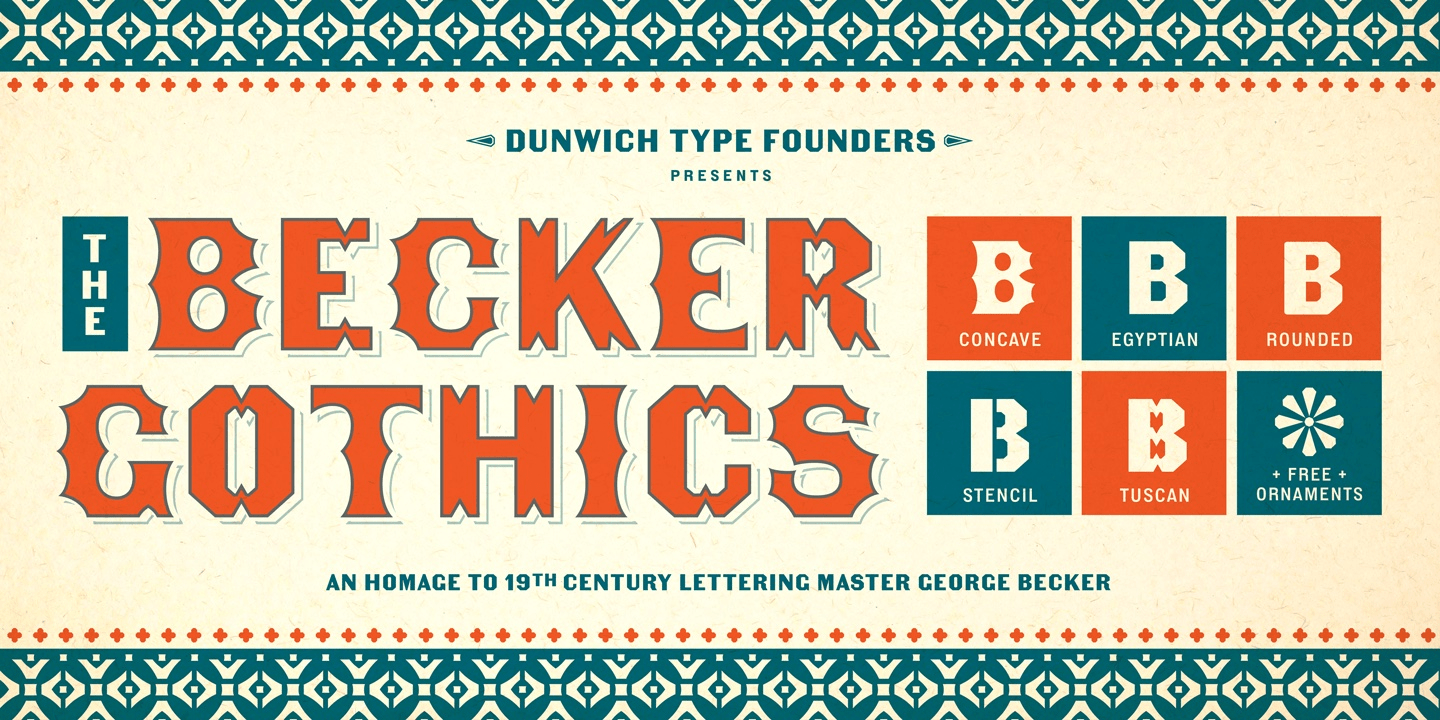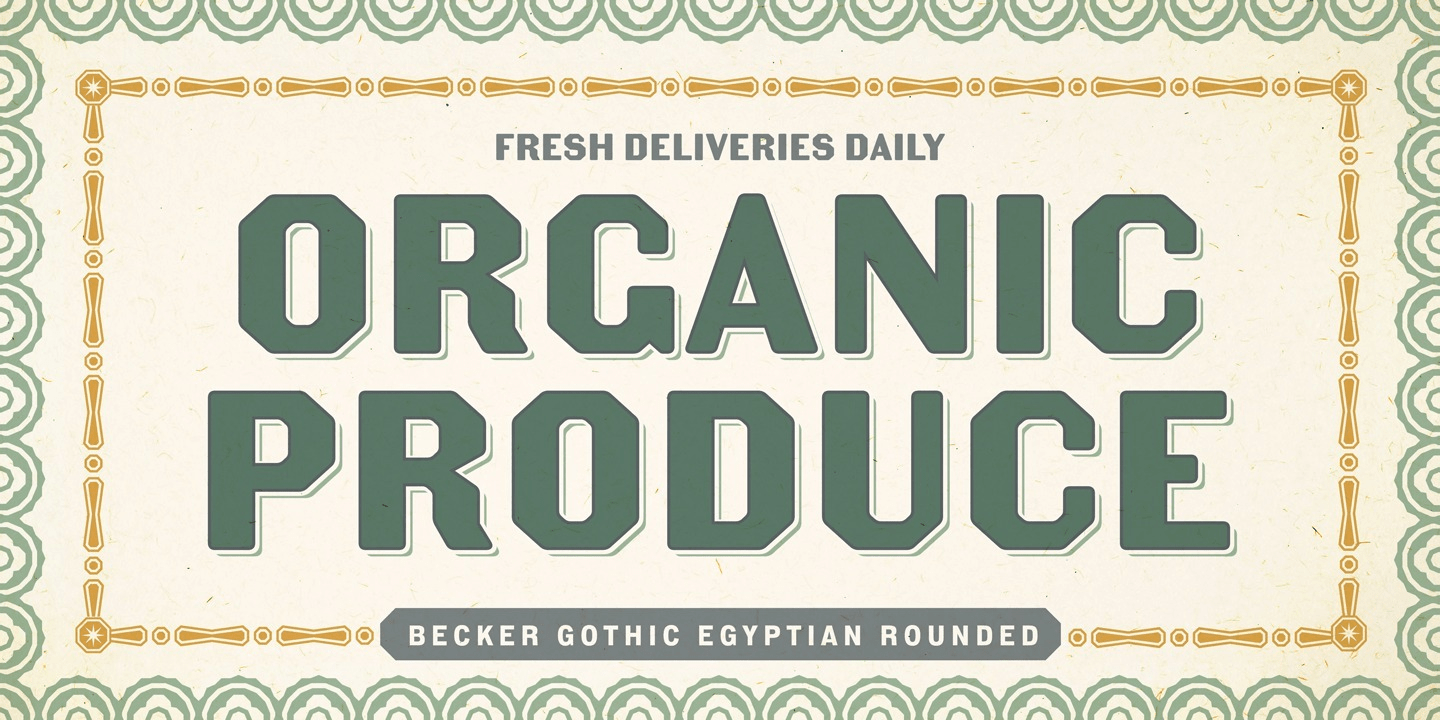
Becker Gothics
Font Family by Dunwich Type Founders
The Becker Gothics pay homage to the nineteenth century American lettering master George Becker. Designer James Puckett has given new life to the ingenious gothic alphabets found in Becker's 1854 lettering manual Ornamental Penmanship. Use this quintet of typographic voices to evoke vintage engraving, lithography, signs, and wood type.
Origins
George Becker was the Professor of drawing, writing, and bookkeeping at Girard College in Philadelphia. Becker's study and teaching led to the publication of a collection of lettering manuals in 1842. Those manuals were popular enough to warrant a sequel and Becker followed up with his magnum opus: the 1854 book Becker's Ornamental Penmanship and Draughtsman's Letter Book. Ornamental Penmanship covered a wide breadth of styles: didone, slab, sans serif, blackletter, and script.
Becker's sans serif alphabets, titled 'Egyptian or Unfinished Block Letters', deserve special attention. These letters are heavy, with medium contrast, and octagons in place of curves. Forms that would now be considered unorthodox or anachronistic make up nearly half of the alphabet and numbers.
Revival
Becker's sans letters provide a window into a wildly innovative period in the history of letters. Sans serif type was strictly codified in the 1900s, when designers smoothed out the rough edges of sans serif type, and many ideas were lost in the process. Becker's antediluvian forms are unexpected delights in today's typography. His two pages of sans serif forms present three variations: the relatively simple octic, the bifurcated tuscan shown only as numbers, and the spiked concave forms. All three styles have been adapted as digital fonts that carefully preserve the essential qualities of the original forms.
Expansion
Two new designs were adapted from Becker's alphabets. A stencil alphabet was designed to lighten up the dark Egyptian. And a rounded version was designed for use in layouts that require a softer touch. And George Becker's letters have been supplemented with support for over 140 languages.